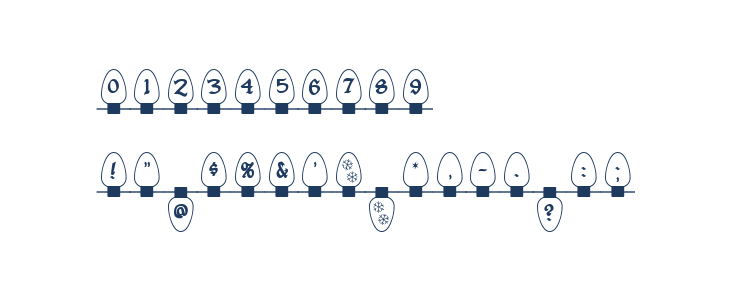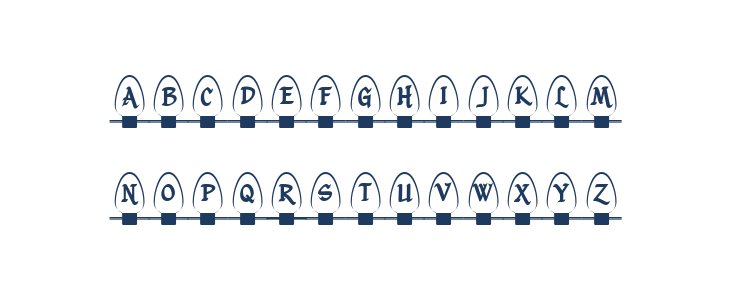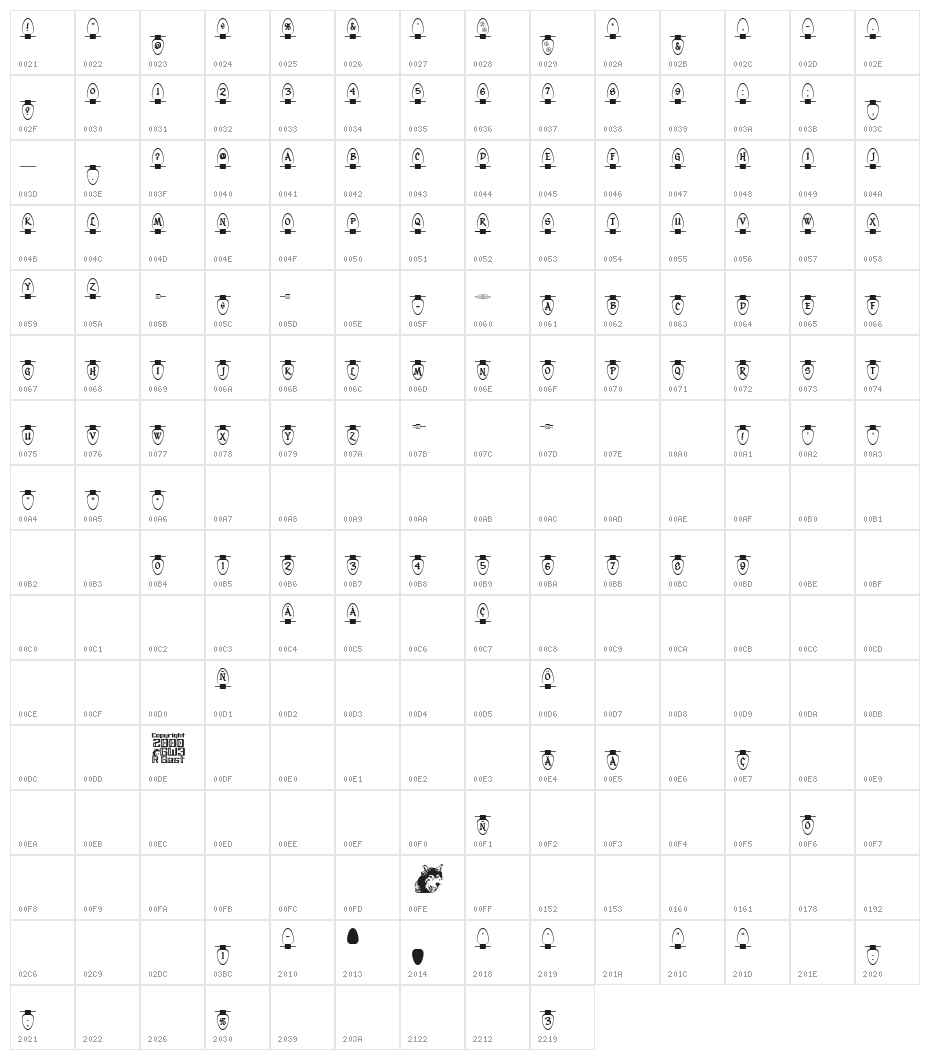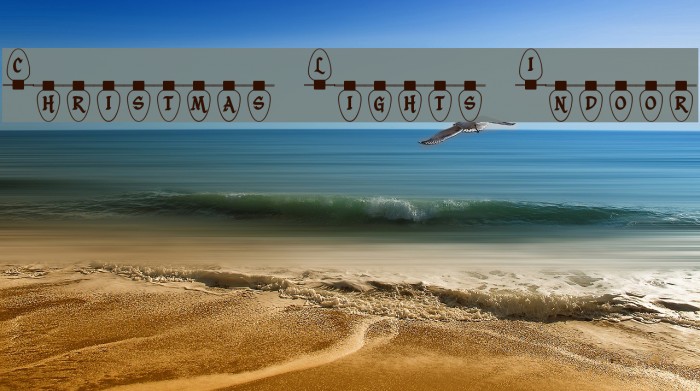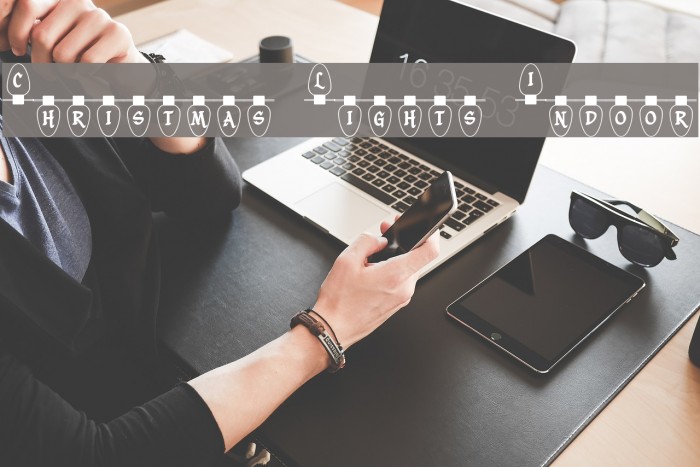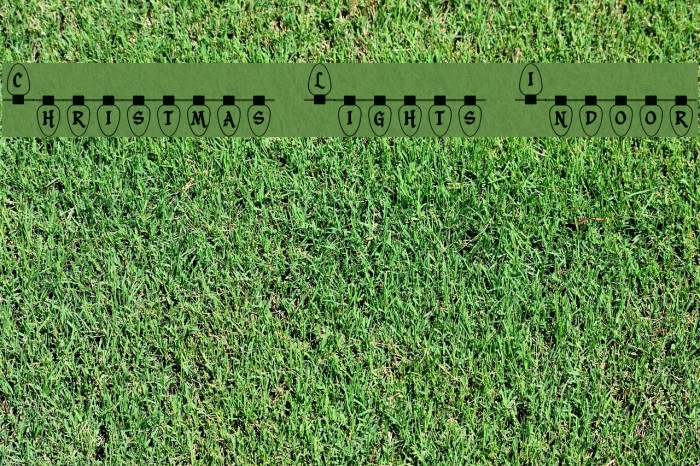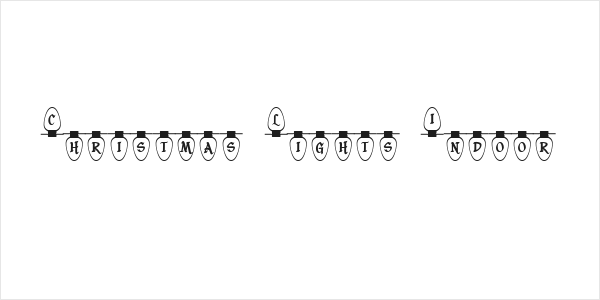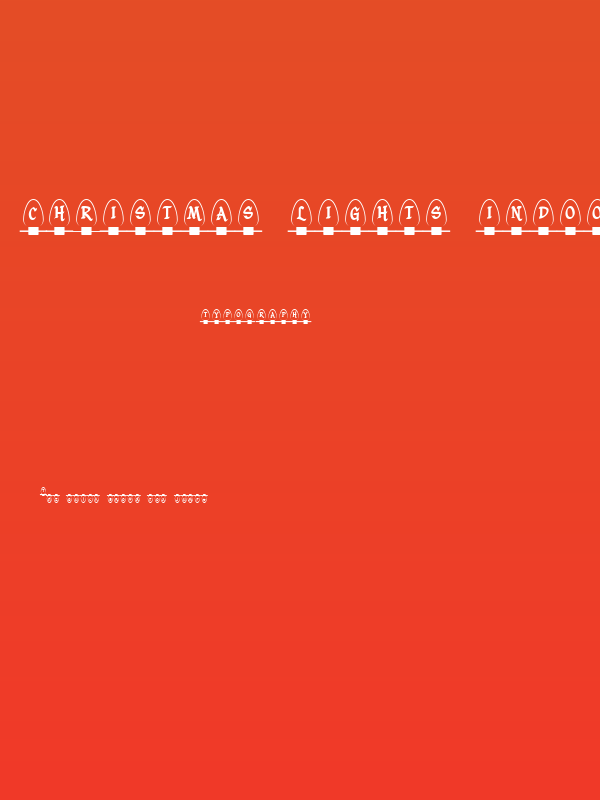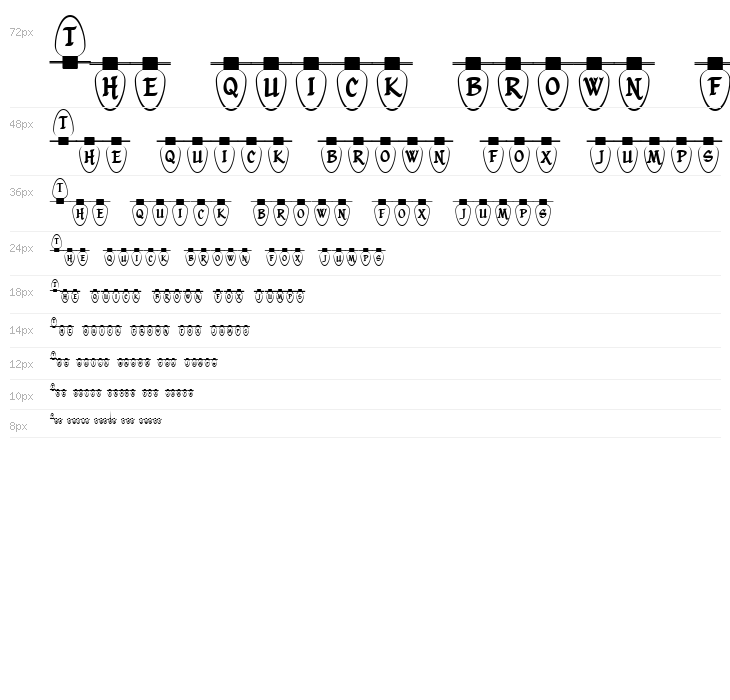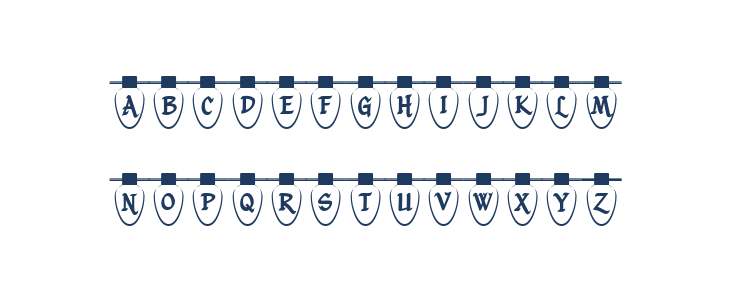
Christmas Lights Indoor Font
Christmas Lights Indoor Description
This decorative font is designed to resemble Christmas lights, with each character encased in a bulb shape. The letters and numbers are bold and playful, featuring a whimsical style that evokes a festive holiday spirit. The characters are evenly spaced within the bulbs, which are connected by a string, enhancing the theme of holiday lights. The font includes uppercase and lowercase letters, numbers, and a variety of special characters, making it versatile for various creative projects. The overall design is both charming and eye-catching, perfect for capturing the essence of the holiday season.
| Use Case | Headlines, Logos, Decorative text |
| Proposed Projects | Ideal for holiday cards, festive banners, party invitations, and seasonal marketing materials. |